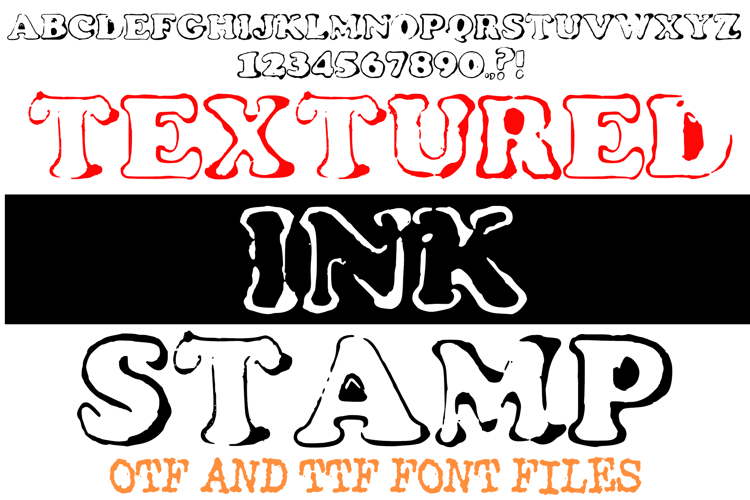
Bring raw, tactile energy to your designs with Textured Ink Stamp Font! This bold display typeface was meticulously handmade using authentic vintage stamps and real ink to capture the perfect balance of grit and character.
Each letter features unique, organic imperfections—from heavy ink bleeds and splattered edges to the beautiful, uneven textures created by the pressure of a manual stamp. This isn't just a digital imitation; it’s a high-impact font that carries the weight and soul of traditional analog printing.